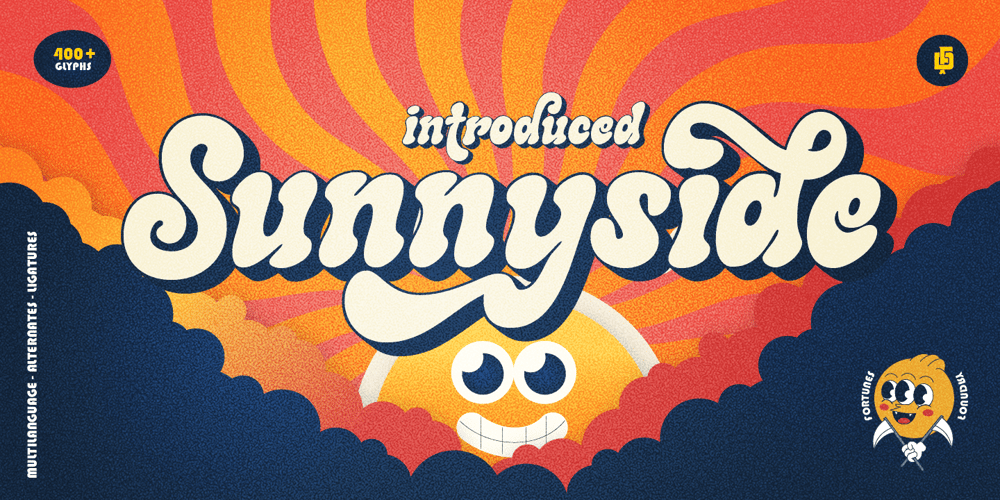
Fd Sunnyside Font Family was designed by Ramandhani Nugraha and published by Fortunes Co. Fd Sunnyside contains 2 styles and family package options. Sunnyside is groovy retro concept typographic come with duo combined, regular and extrude, bring if the old west and the 70s had a lovechild with not a unformal usage, it’s the perfect typeface for adding sophisticated playfulness to any design project. fit to logo, brand, apparel, etc